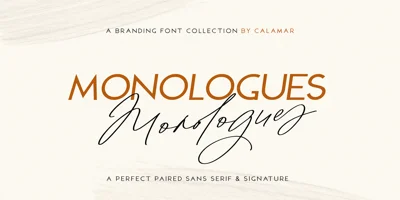
Monologues Font
Looking for an elegant and expressive font that tells a story? Monologues Font is perfect for book covers, theater posters, personal blogs, and any creative project that needs a touch of sophistication and emotional depth. Its flowing lines and artistic strokes give your designs a handwritten, intimate feel that captures attention.
Whether you’re creating a heartfelt message or a striking brand identity, Monologues Font offers the perfect balance of elegance and personality.